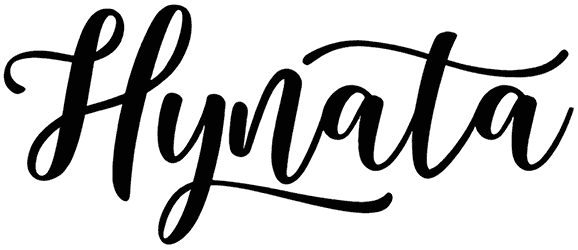
Hynata Font
Hynata is a font that gives off a stylish and serious vibe to your text and gives you the option of growing your letters in a subtle manner. This romantic font contains smooth and curly characters with a continuous effect that presents a feminine look.
You can use this font to write documentary books, movie titles, shop signs, and fashion headlines. The bold look of the script font gives a mellow and happy mood to your work.